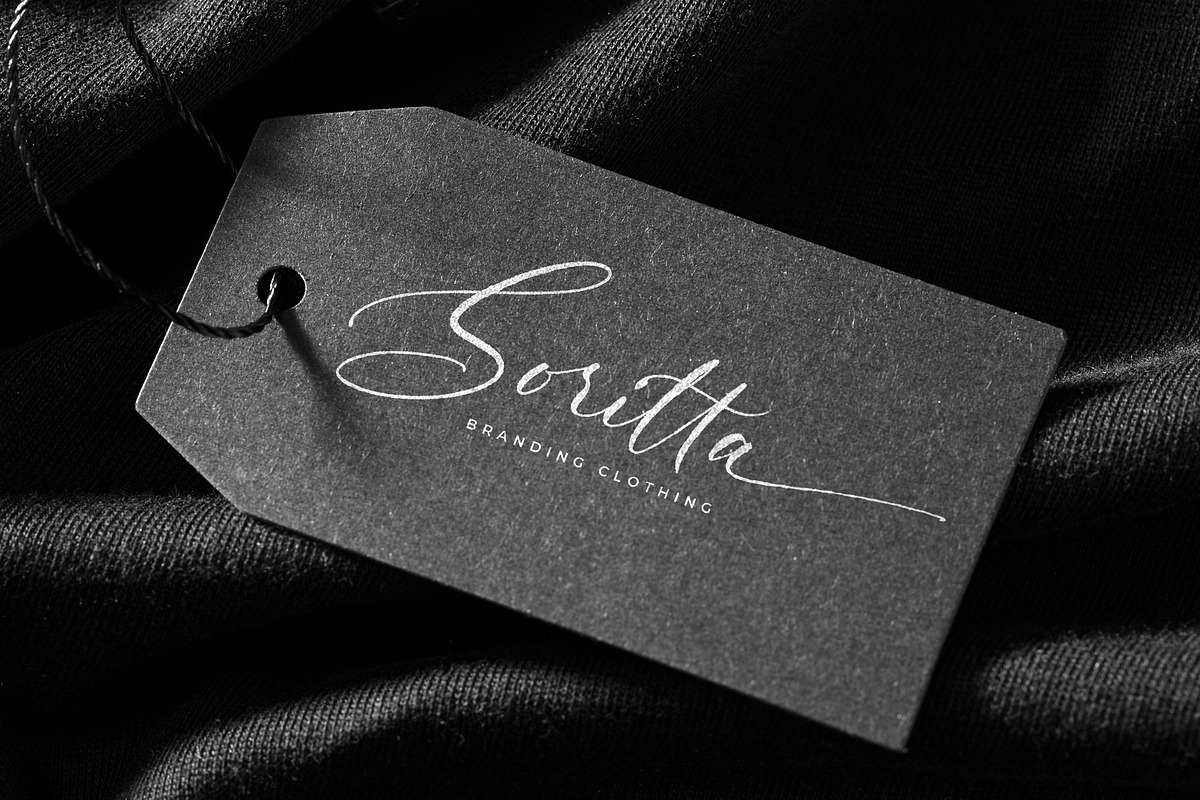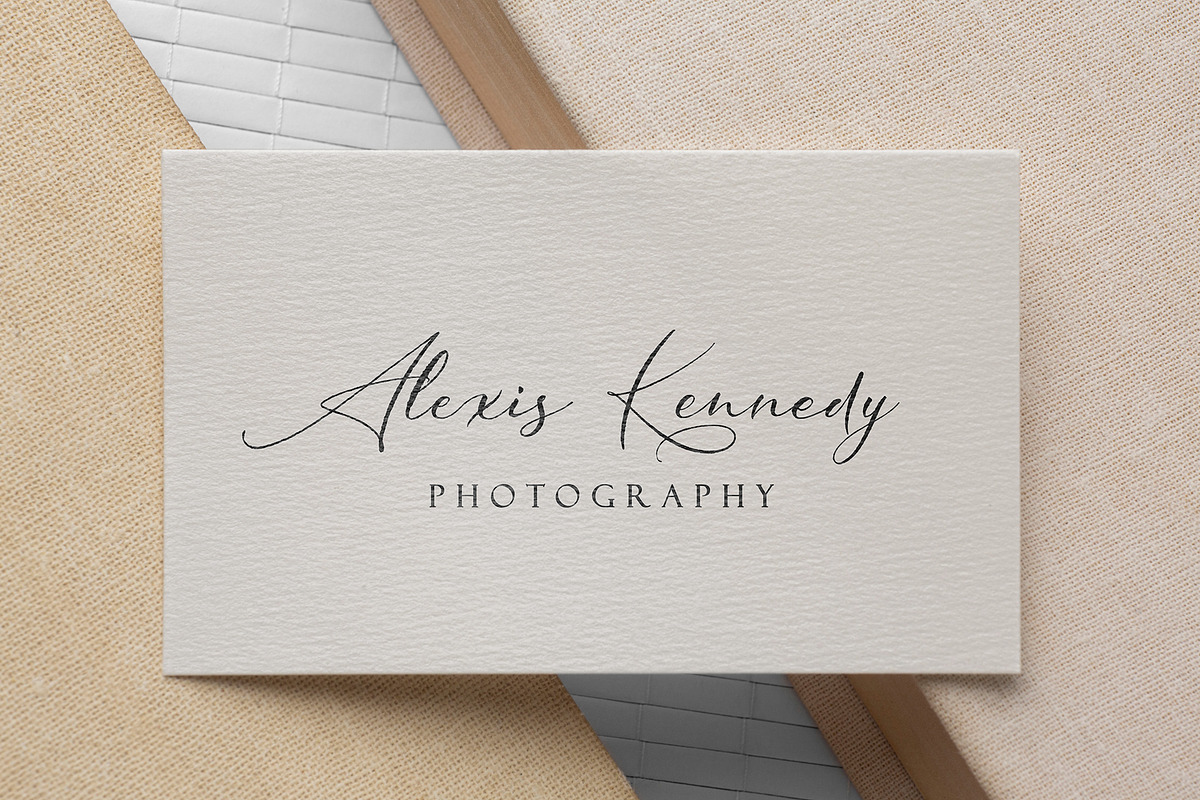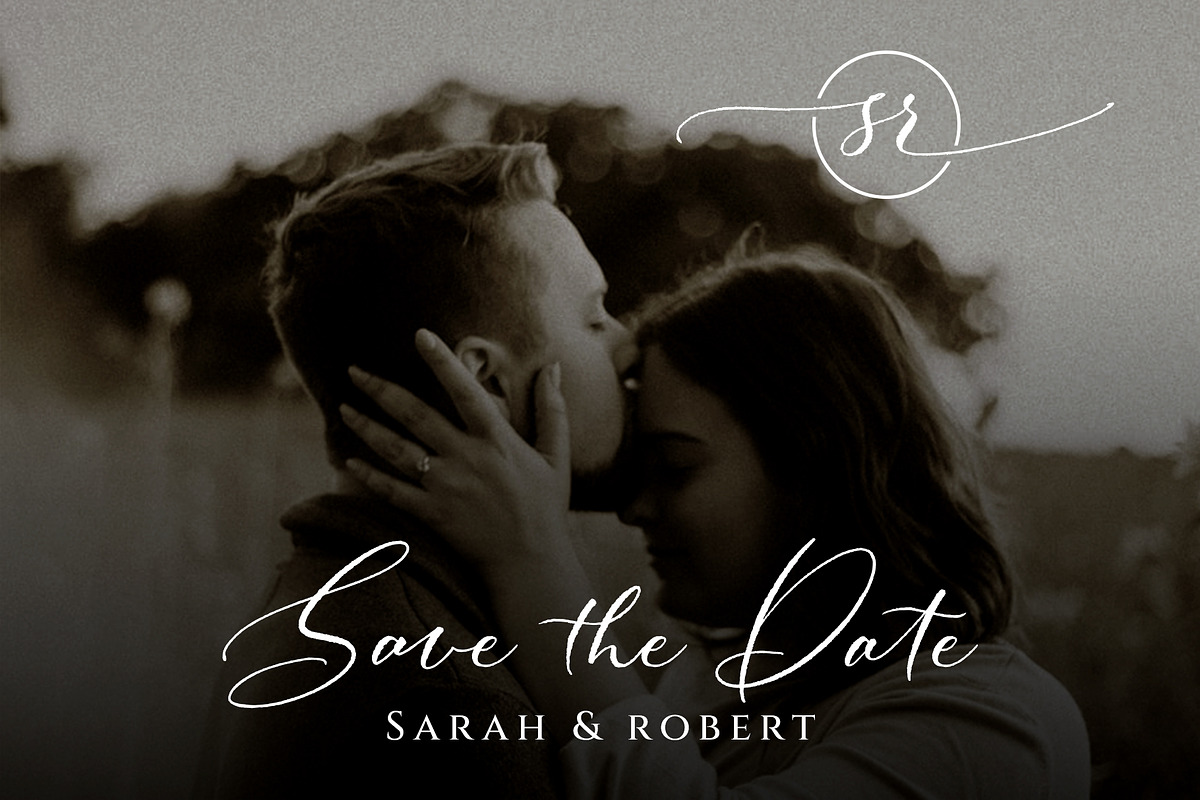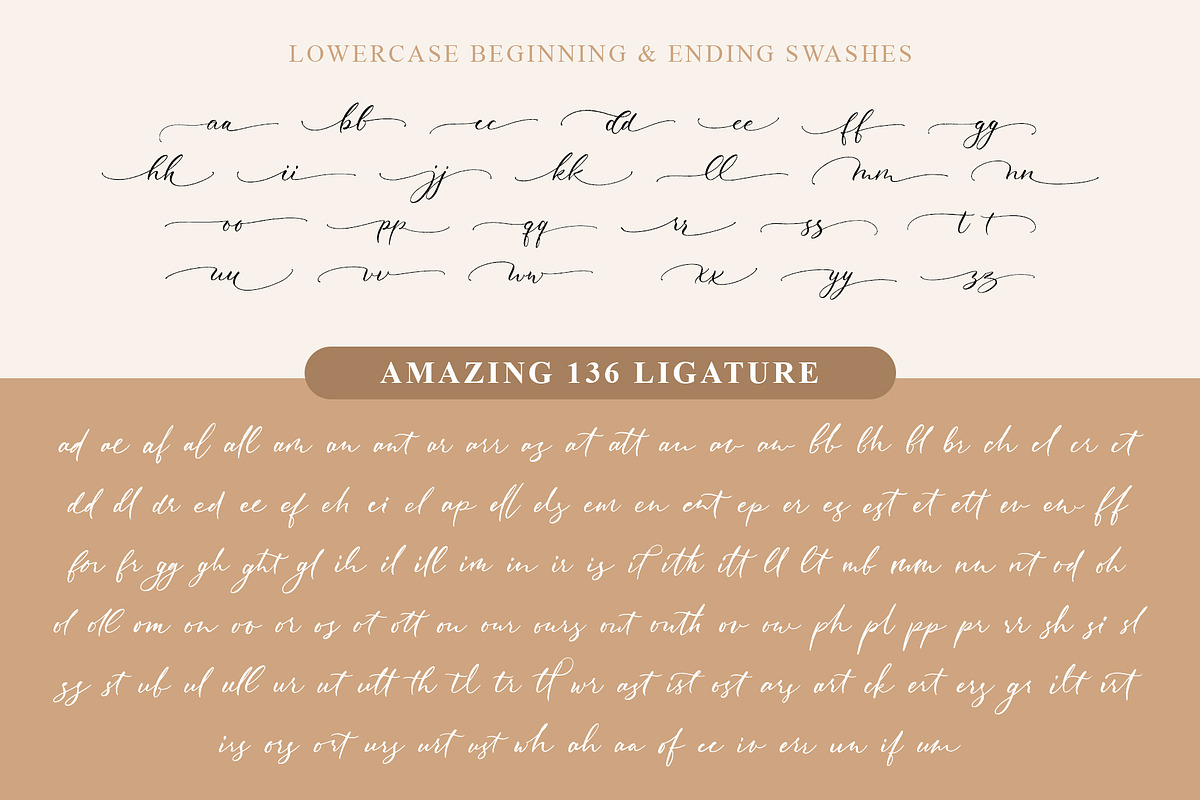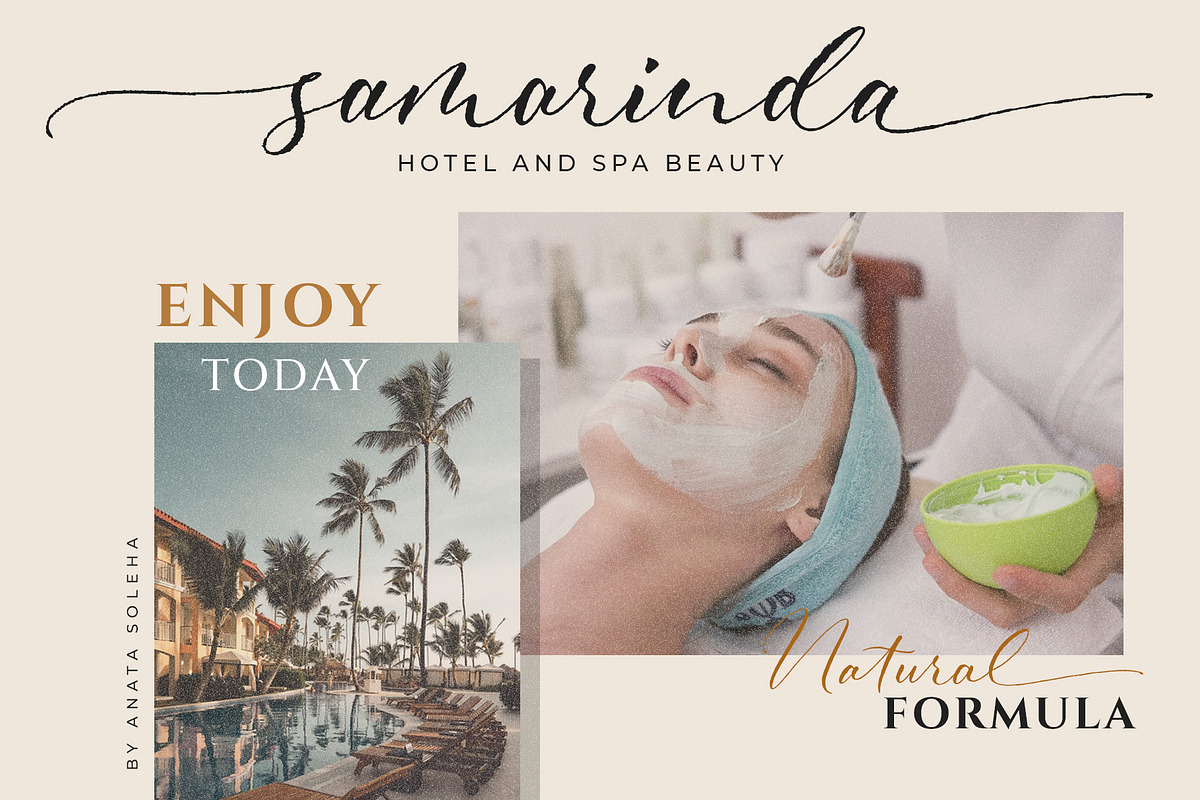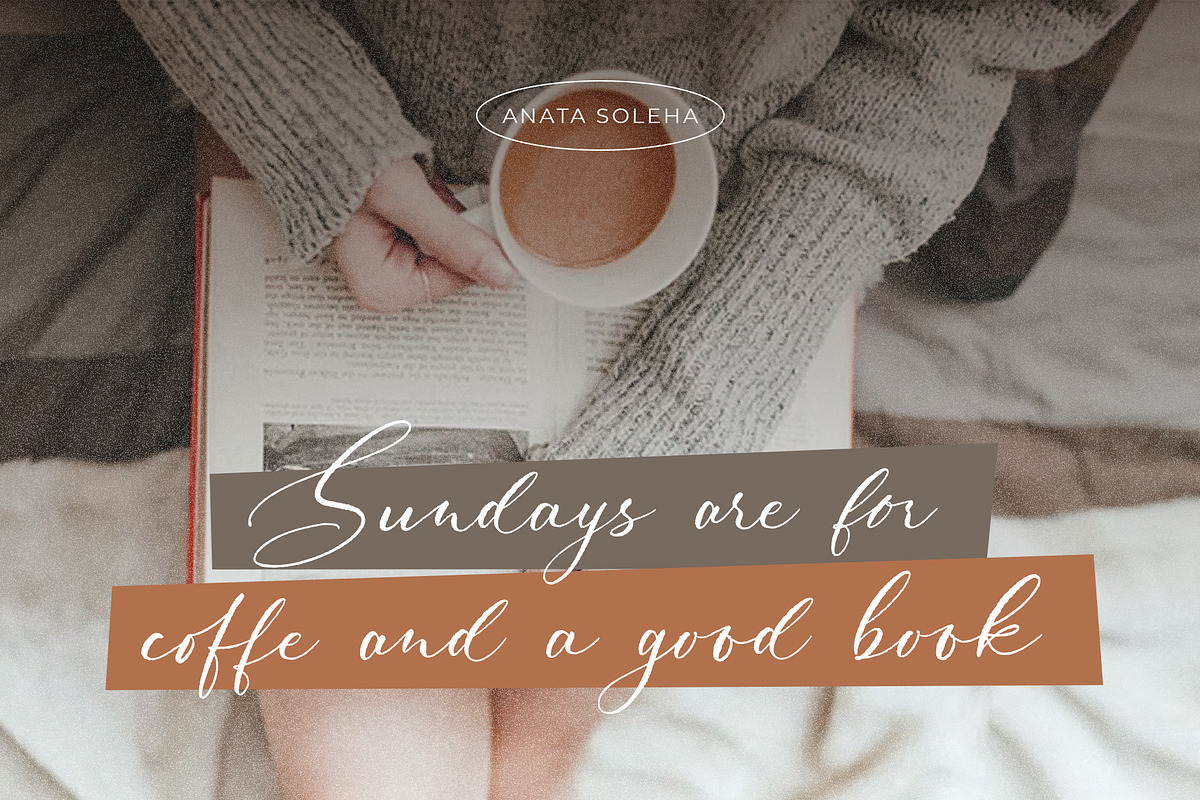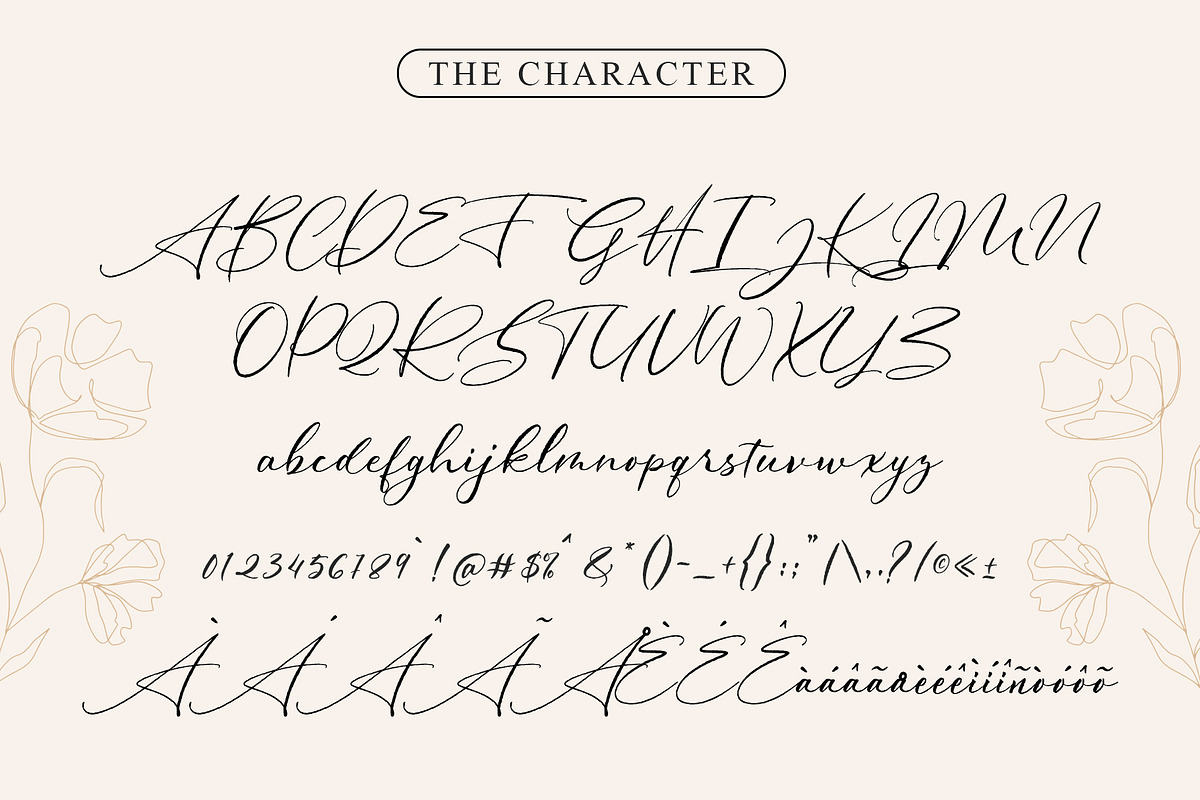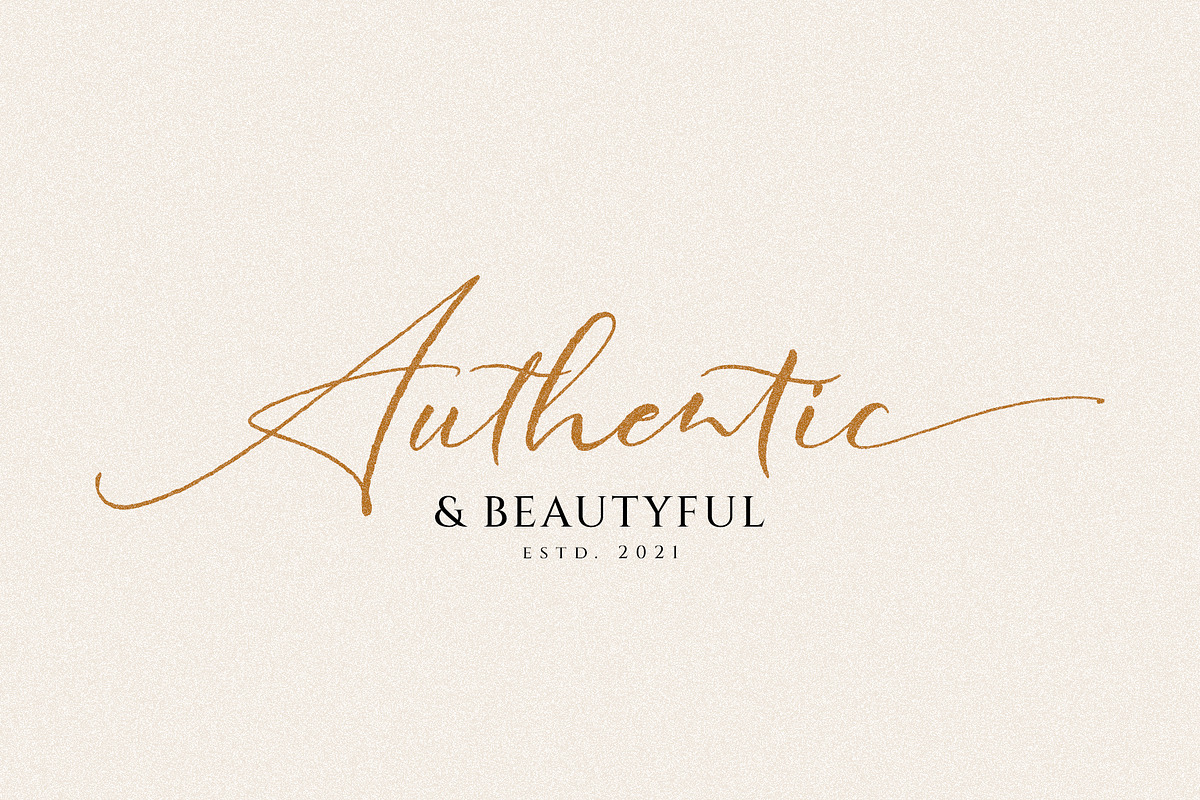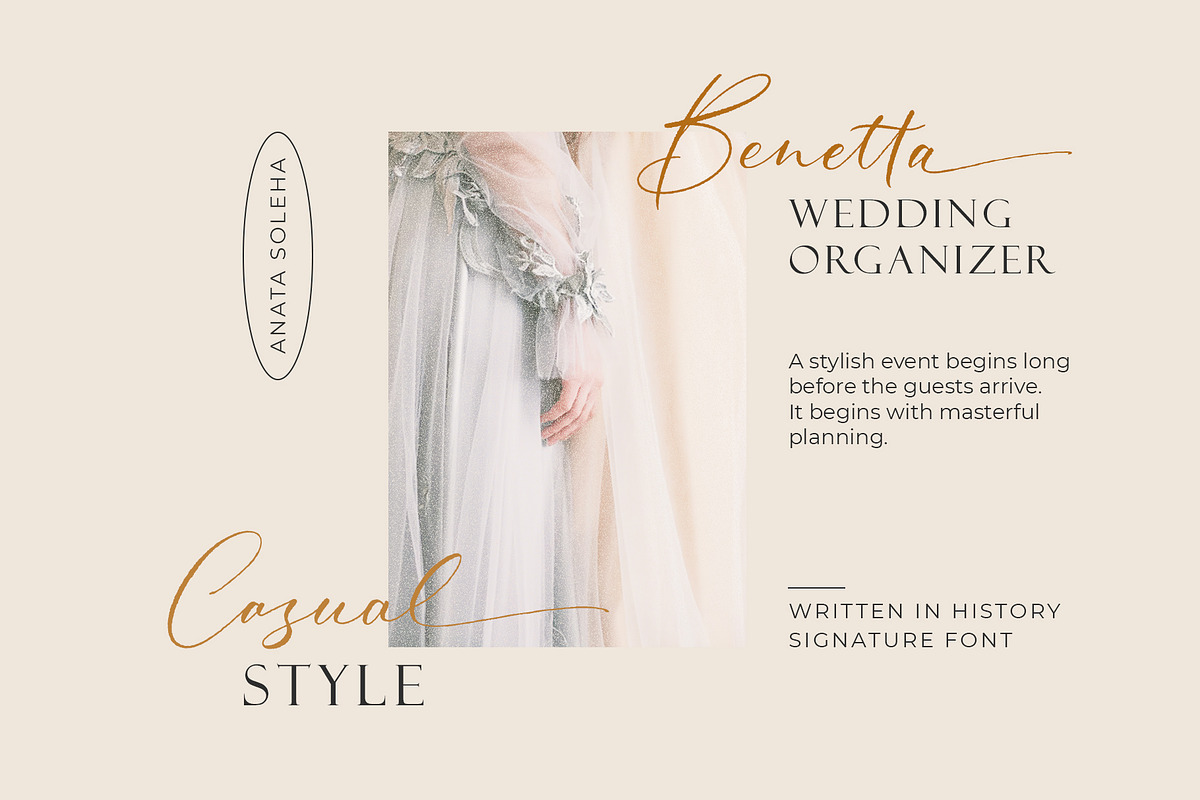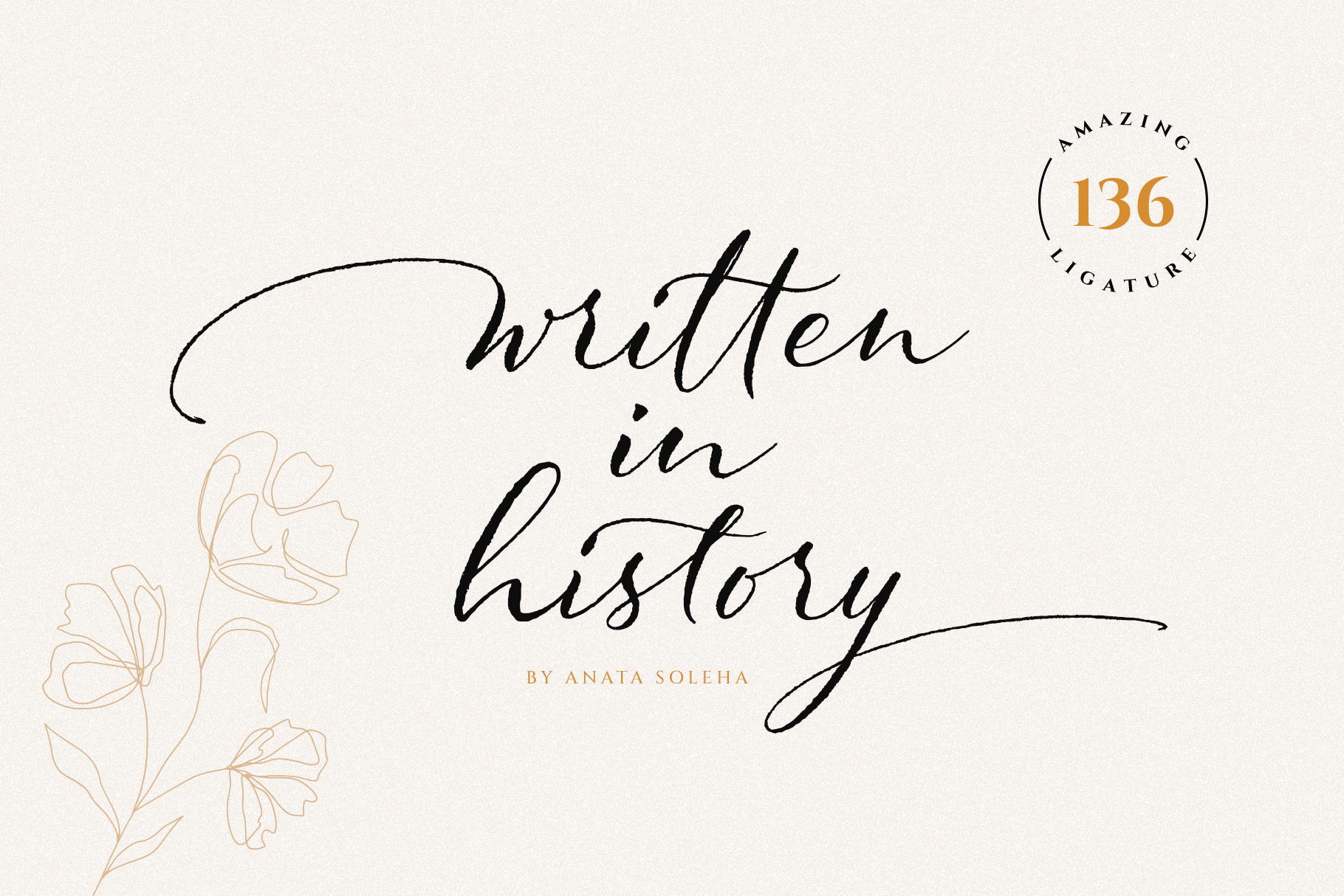
Written in History // Signature Font
Hello!! Introducing an elegant signature font, again!!
Written in History is a contemporary and beautiful signature font. This font will make perfect designs for gorgeous logos, posters, wedding invitations, blog posts, social media, and more!
Written in History includes more than 136 ligatures will make your design look high end.
This font also support more languages with characters such ÀÁÂÃÄÅÆÇÈÉÊËÌÍÎÏÑÒÓÔÕÖÙÚÛÜÝàáâãäåæçèéêëìíîïðñòóôõöùúûüýÿŸŠ.
Written in History will suit well for feminine, sexy and elegant logo.